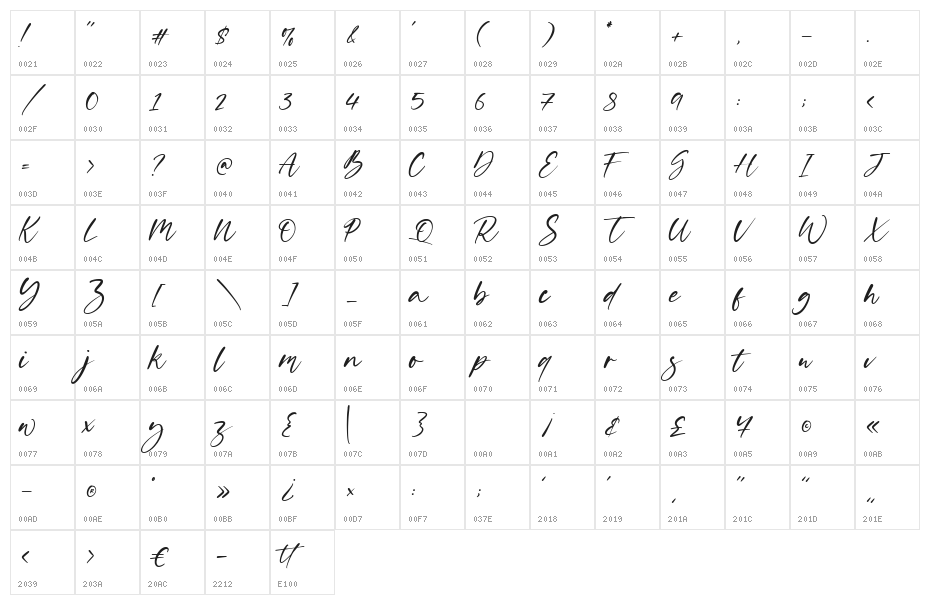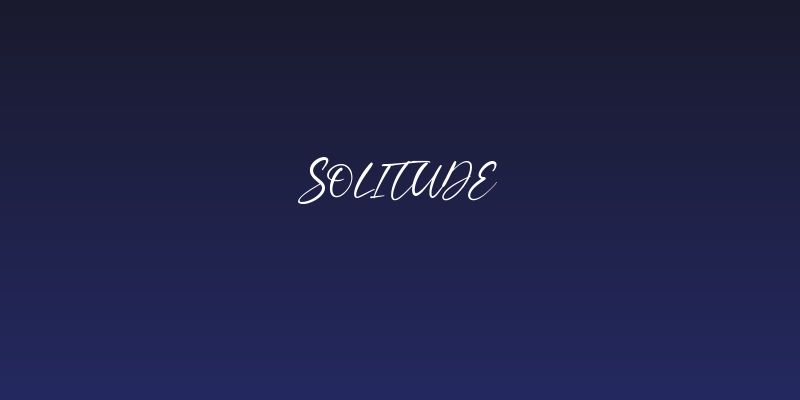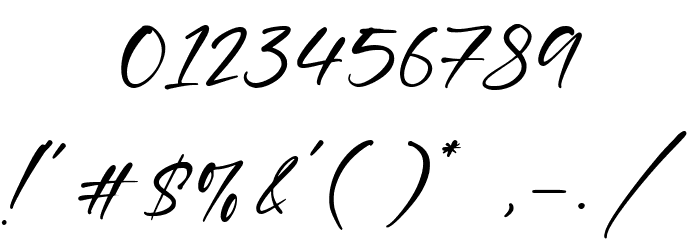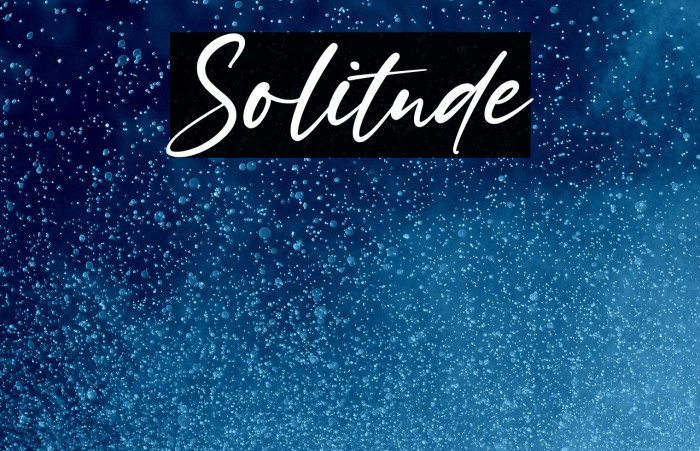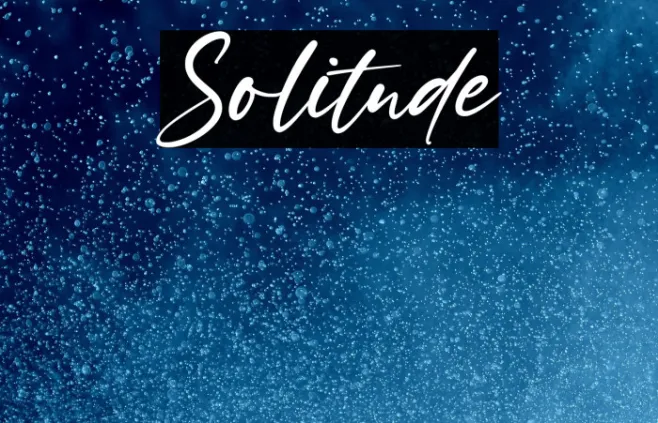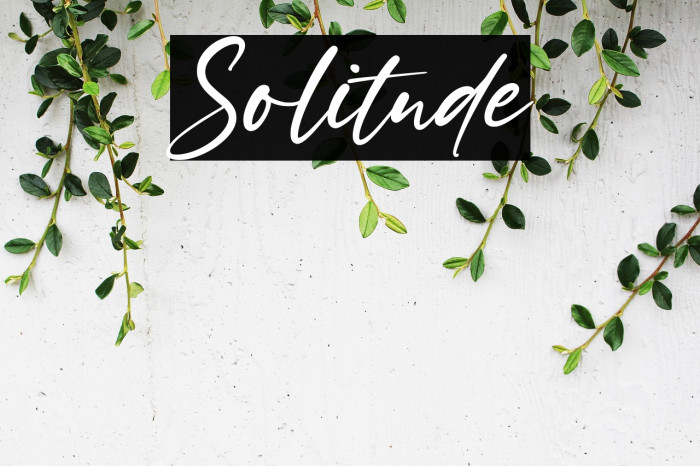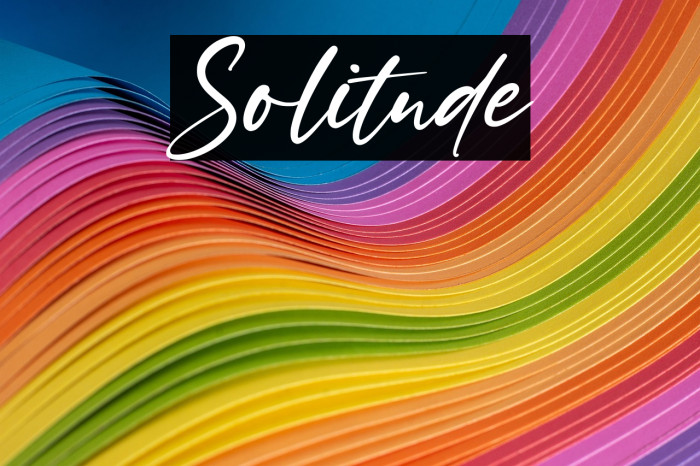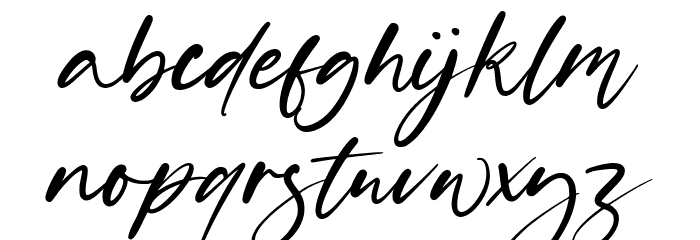
Solitude Font
Solitude Description
This font exudes a dynamic and expressive style, characterized by its fluid, cursive script that mimics natural handwriting. The strokes are smooth and flowing, with a slight slant that adds to its elegance. Each letter is distinct yet harmoniously connected, creating a cohesive look. The uppercase letters are bold and prominent, while the lowercase letters maintain a consistent rhythm. The numerals and special characters are crafted with the same attention to detail, ensuring versatility across various applications. The overall appearance is both artistic and legible, making it suitable for creative projects.
| Proposed Projects | Ideal for wedding invitations, greeting cards, branding, and artistic projects that require a personal touch. |